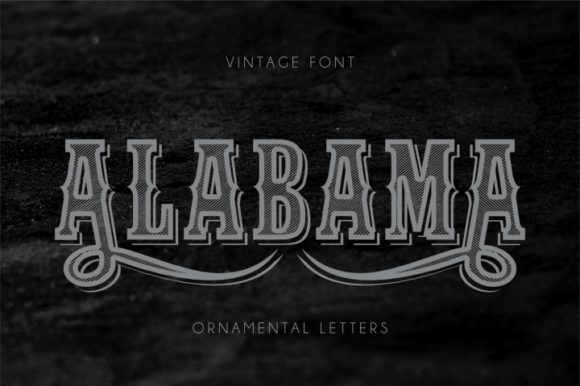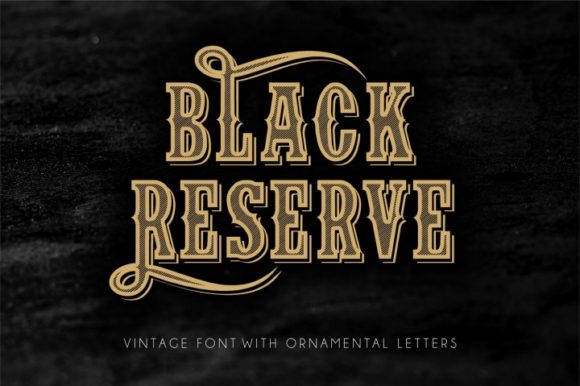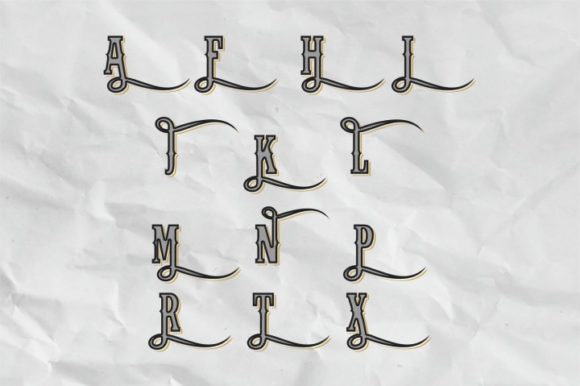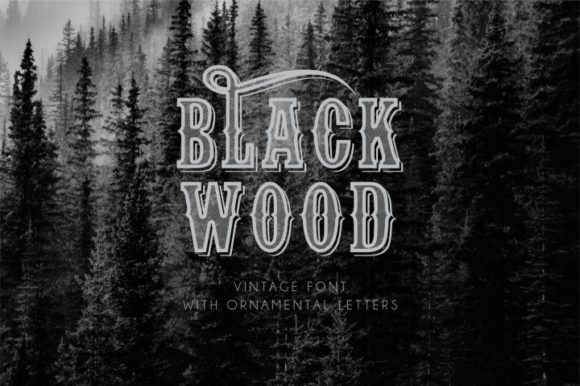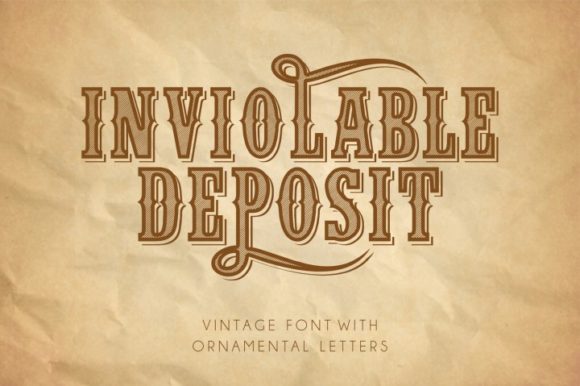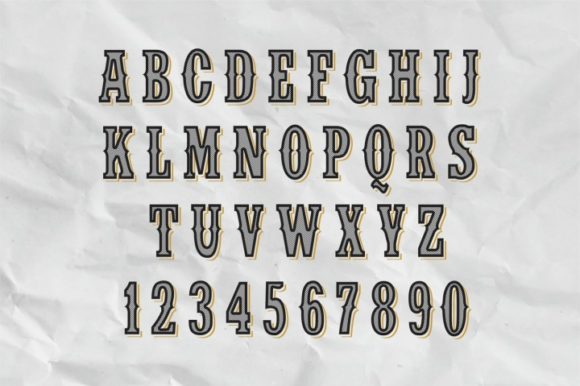
Introduction to Reserve Font
The Reserve is an object-based font.
It includes beautiful swashes which, if combined with the regular letters, will add an unique look to your designs .